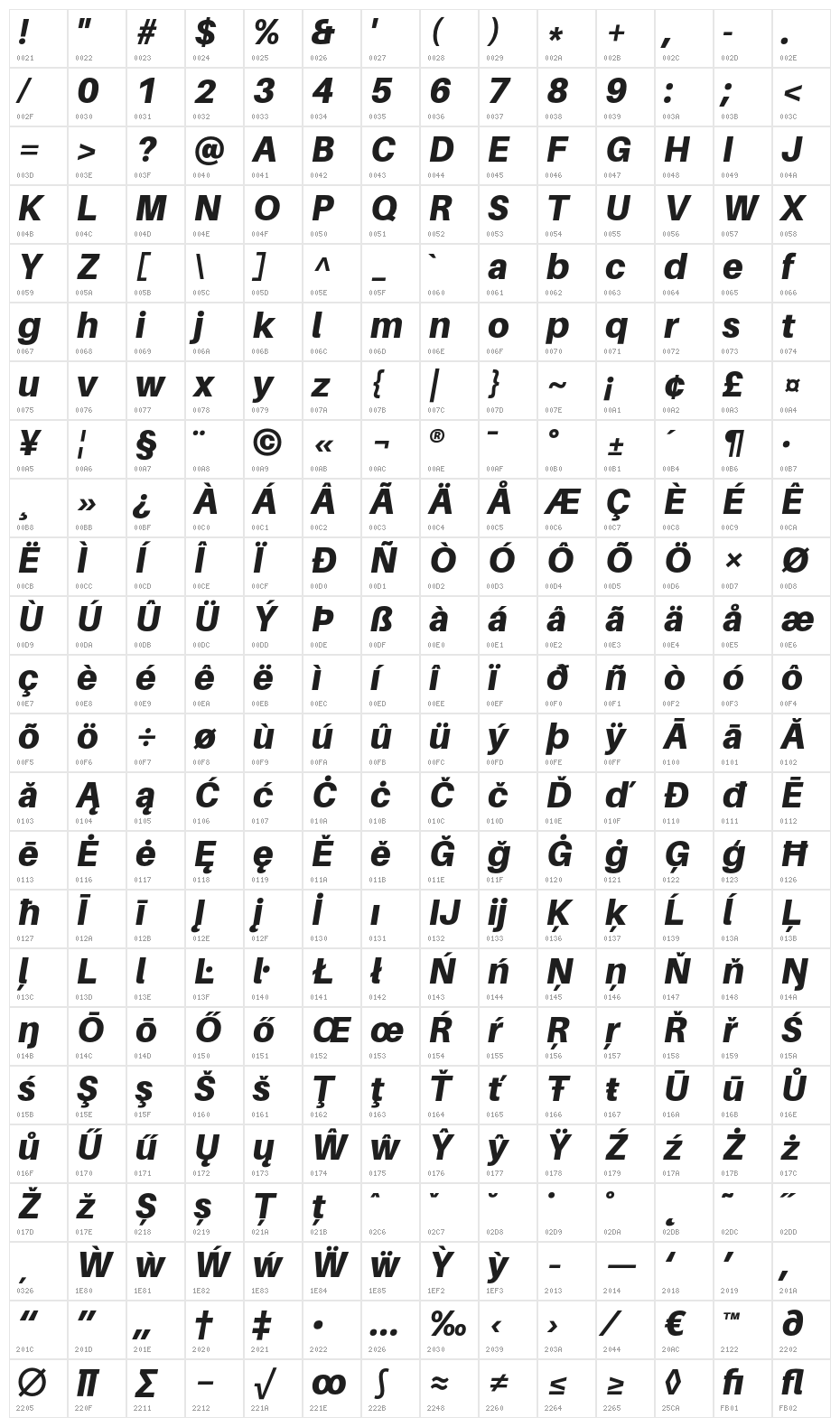
Aileron Black Italic Font
Aileron Black Italic Description
This font exhibits a bold and italicized style, characterized by its strong presence and dynamic slant. The uppercase and lowercase letters maintain a consistent thickness, contributing to its robust appearance. The numerals are equally bold, ensuring readability and uniformity across different uses. Special characters are designed with the same boldness, making them stand out effectively. The overall design is modern and sleek, suitable for various applications that require emphasis and clarity.
| Proposed Projects | Ideal for branding, headlines, posters, and any design requiring a strong visual impact. |